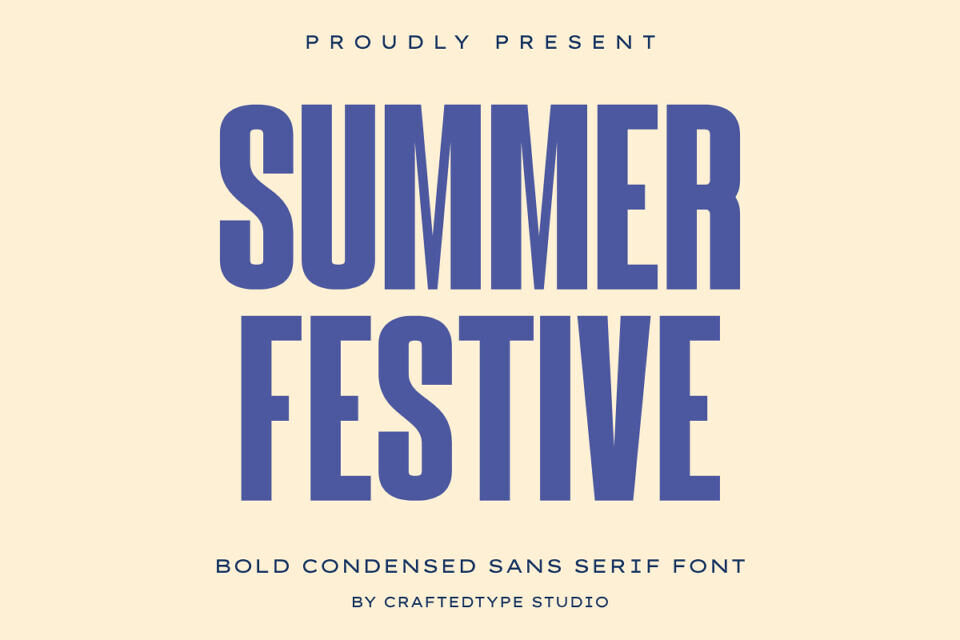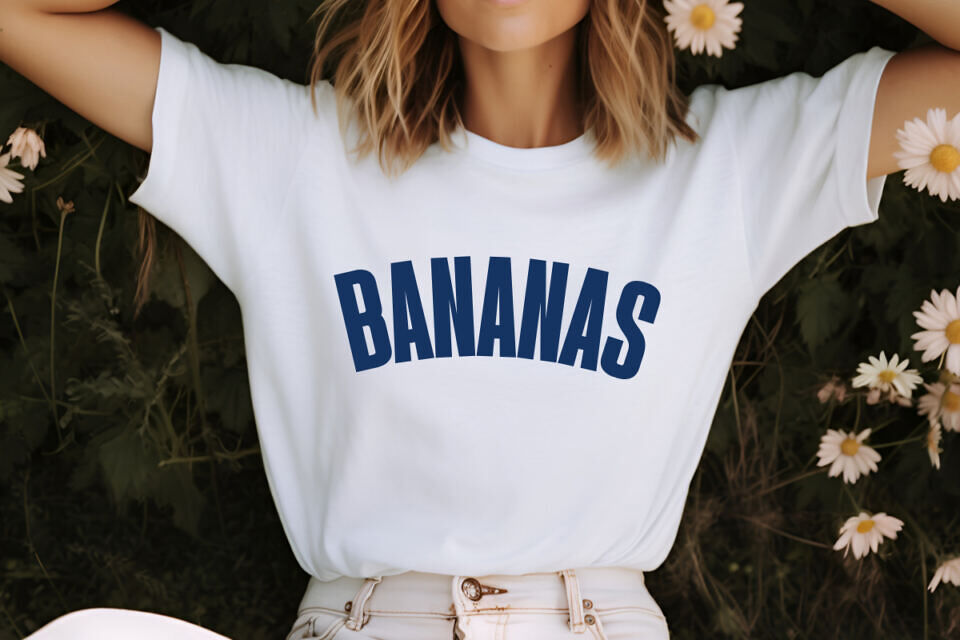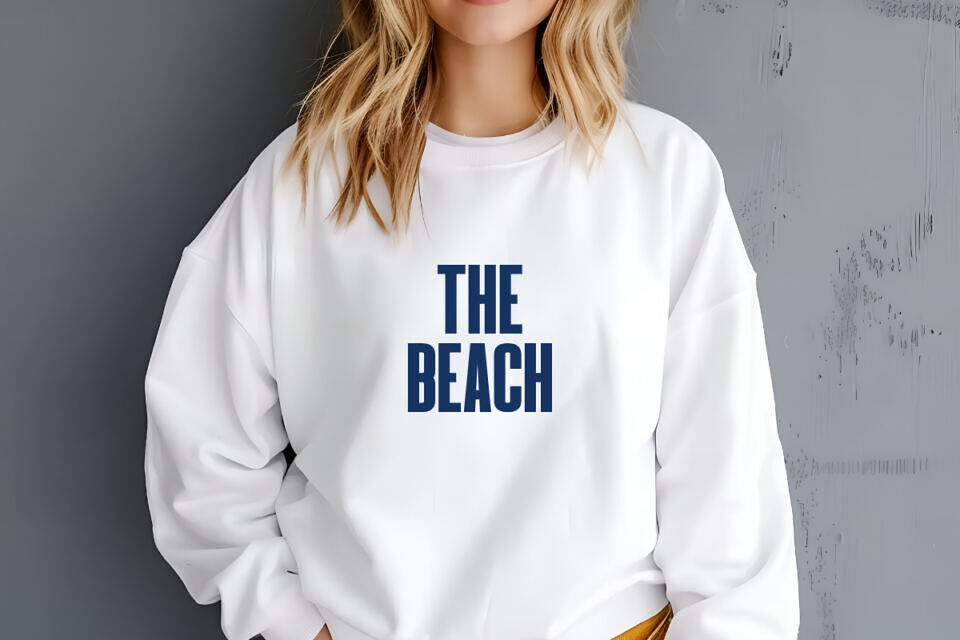
Summer Festive is a bold condensed sans serif font designed to bring a powerful and energetic presence to your creative projects. With its tall, narrow letterforms and clean geometric construction, this typeface is an essential asset for graphic designers looking to create high-impact headlines, modern branding, and vibrant event posters.